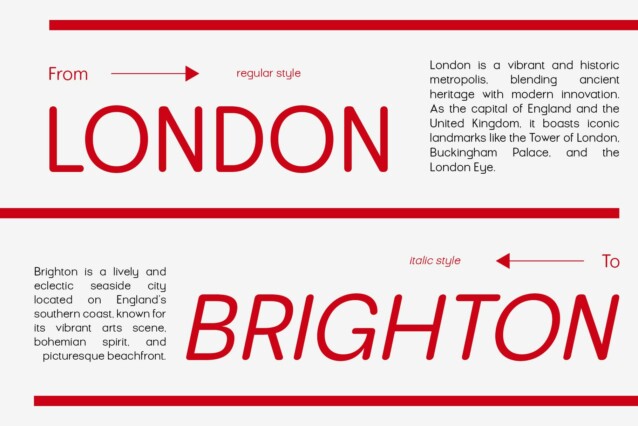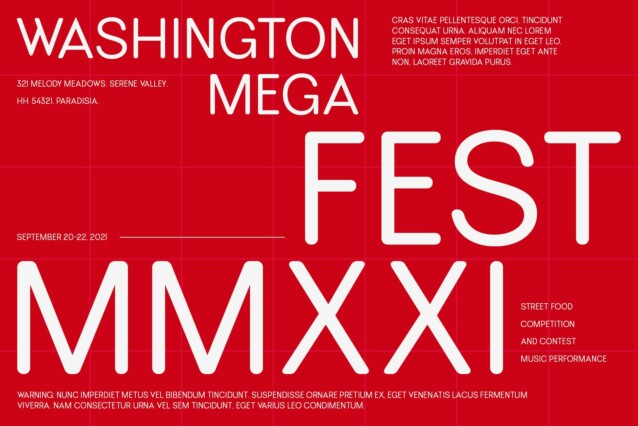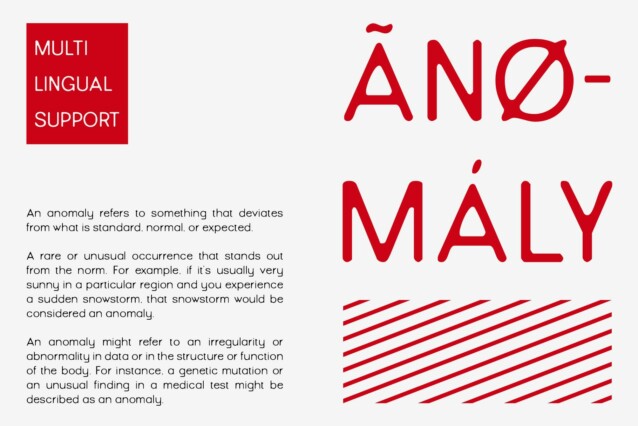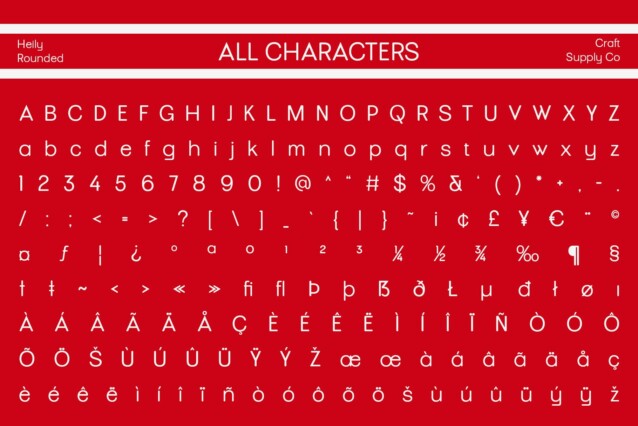
Heily Rounded Font
Heily Rounded Font is a modern sans-serif font that skillfully combines the clean, functional design of grotesque typefaces with the inviting softness of rounded edges. The grotesque style provides a straightforward and slightly assertive character, ensuring excellent readability and clarity across various platforms and mediums.